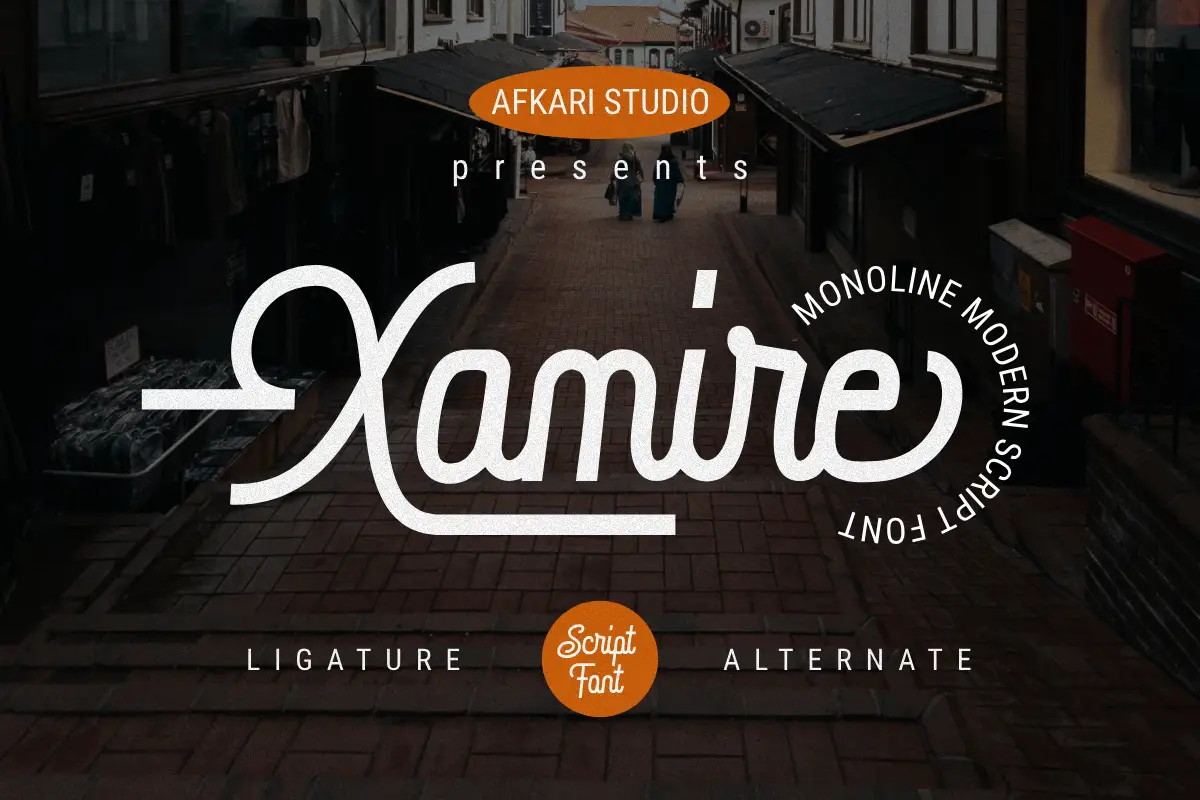
Step into a world of timeless sophistication with Xamire, a remarkable monoline script font that embodies pure elegance and contemporary design. This font is more than just letters it’s a seamless blend of sleekness and artistic finesse that transcends the ordinary.
With graceful curves and flawless strokes, Xamire redefines sophistication, making it the perfect choice to enhance any design project. Crafted with meticulous attention to detail, this font brings versatility beyond conventions. Whether for branding, invitations, advertising, or editorial design, Xamire’s clean lines and effortless flow infuse refinement into every visual creation.
Embrace the enchantment of Xamire and unleash boundless creativity. Its extensive character set and flawless connectivity empower your designs, captivating audiences and leaving a lasting impression. Experience the convergence of modernity and sophistication in every stroke with Xamire.
Highlighted Features Include:
- Uppercase, Lowercase, Numbers, and Punctuation
- Special alternates and ligatures for added style
- Multilingual support for characters like ä, ö, ü, Ä, Ö, Ü, ß, ¿, and ¡
Unleash the potential of your projects with Xamire—where every stroke echoes sophistication. Dive into a font that elevates your creativity and leaves a lasting impact.
Xamire Free Monoline Modern Script Font